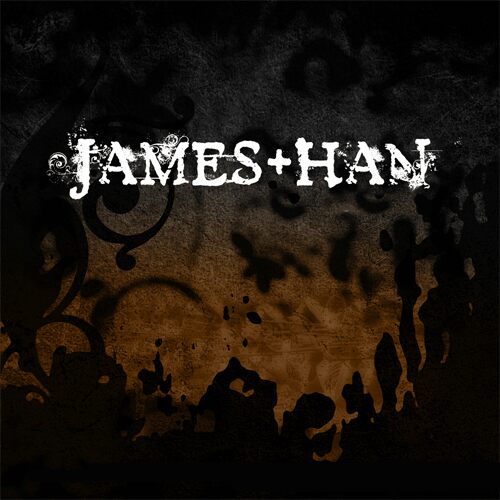
James Han is a free distressed serif display font with battered, ink-splashed forms. Its broad capitals have uneven edges, broken patches, and stray flourishes that make the lettering resemble a worn print pulled from a damaged block.
It can turn a title into part of the artwork rather than a neutral caption. The rough theatrical texture suits horror posters, rock merchandise, and game packaging, where it can establish a grimy, unruly brand identity across each project.